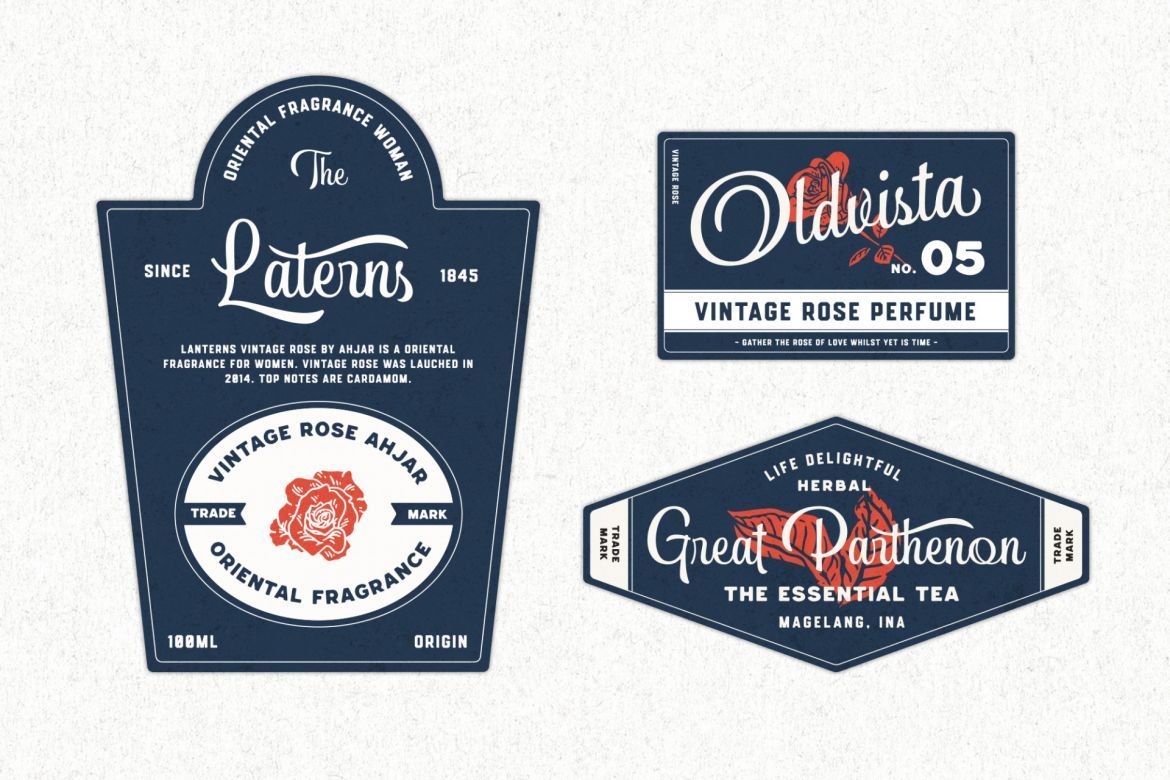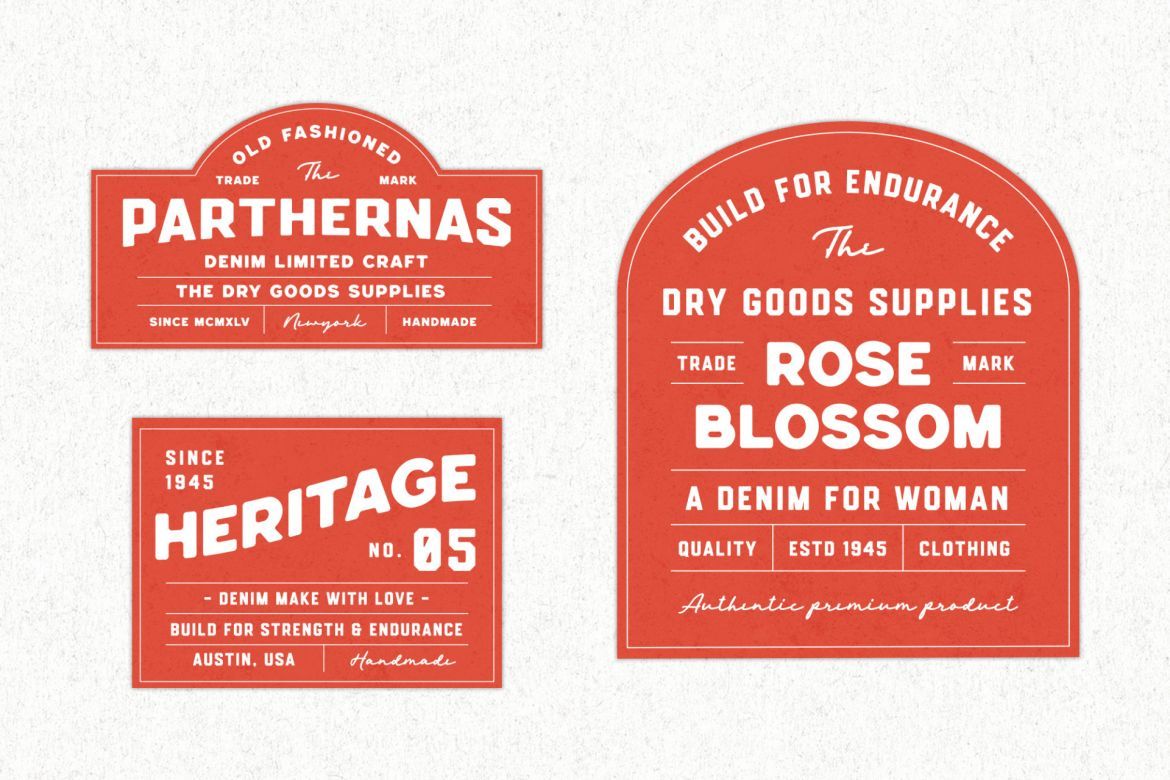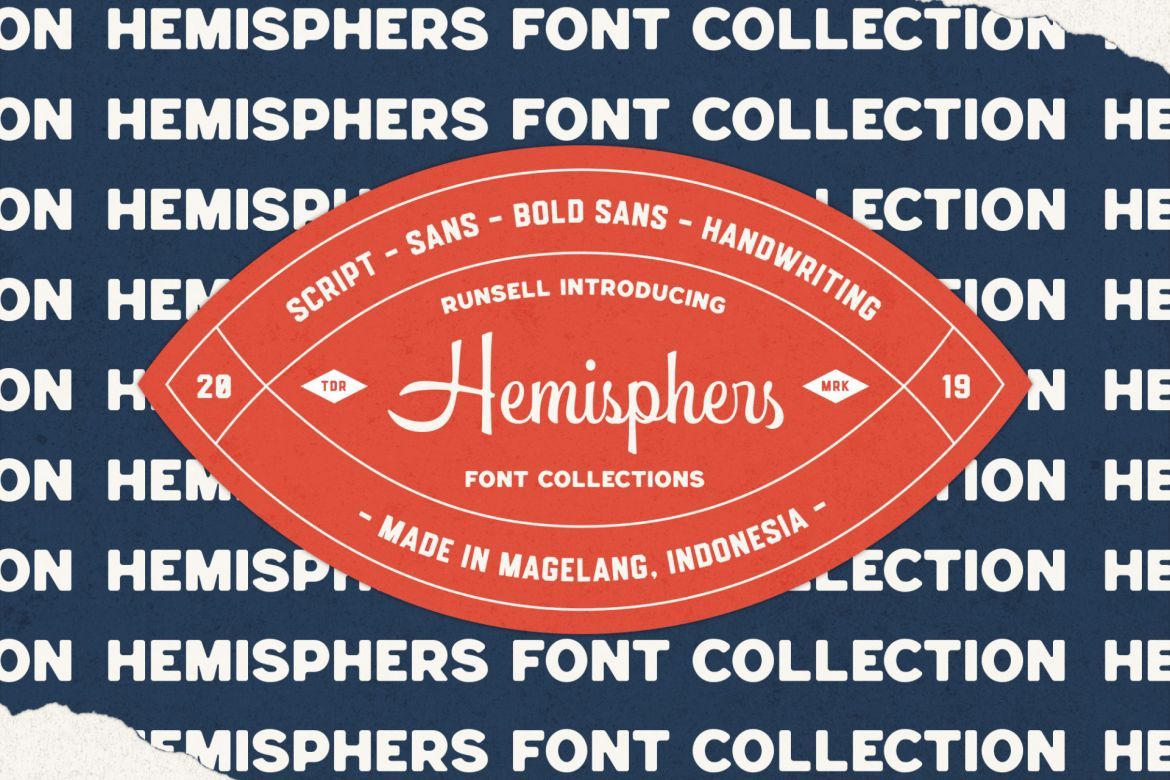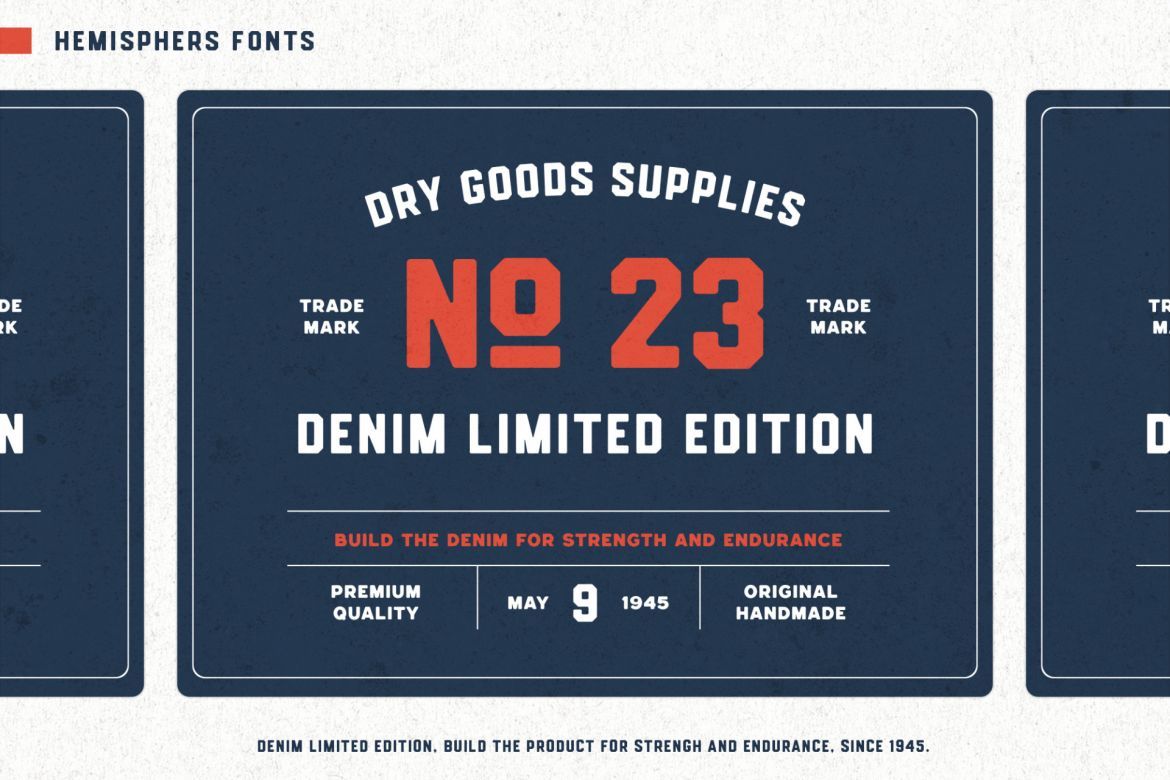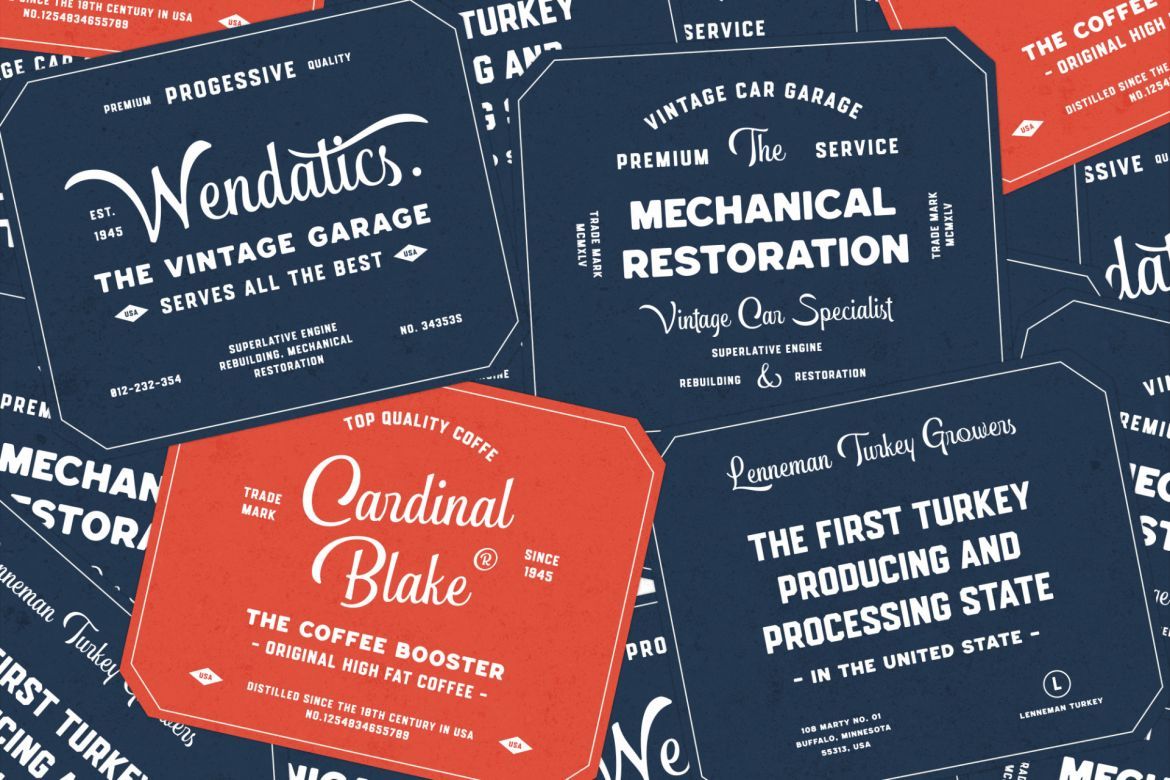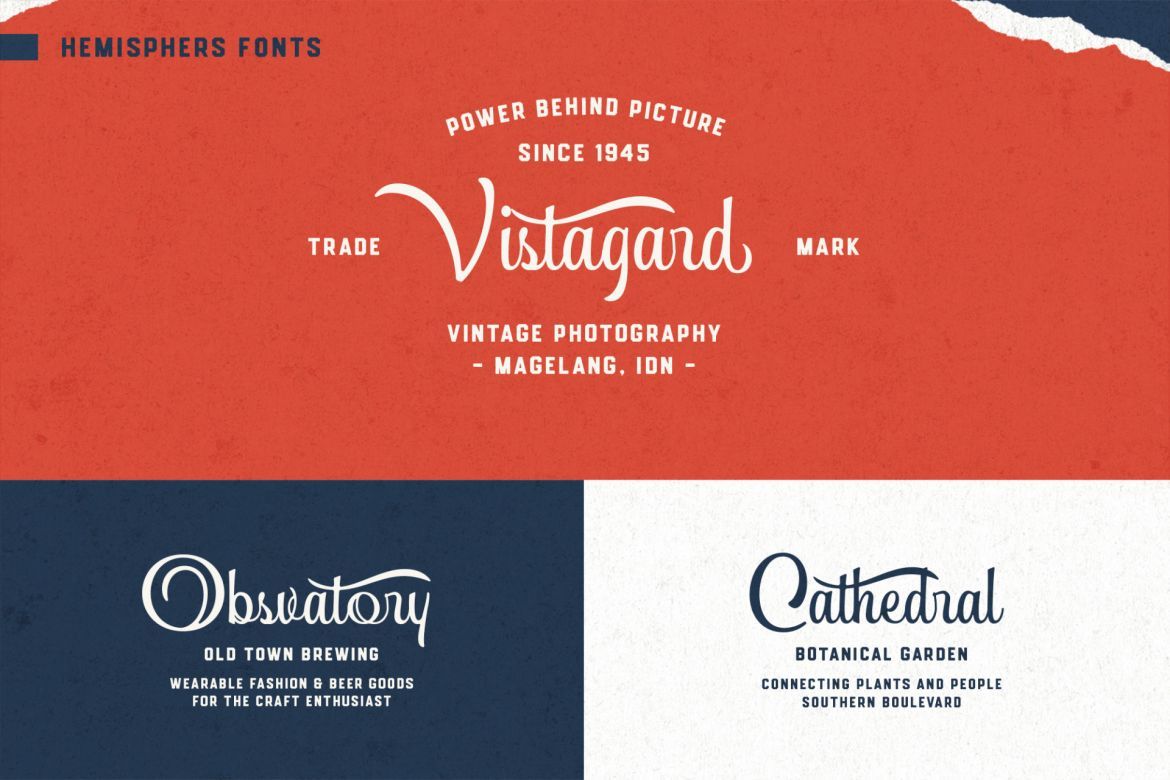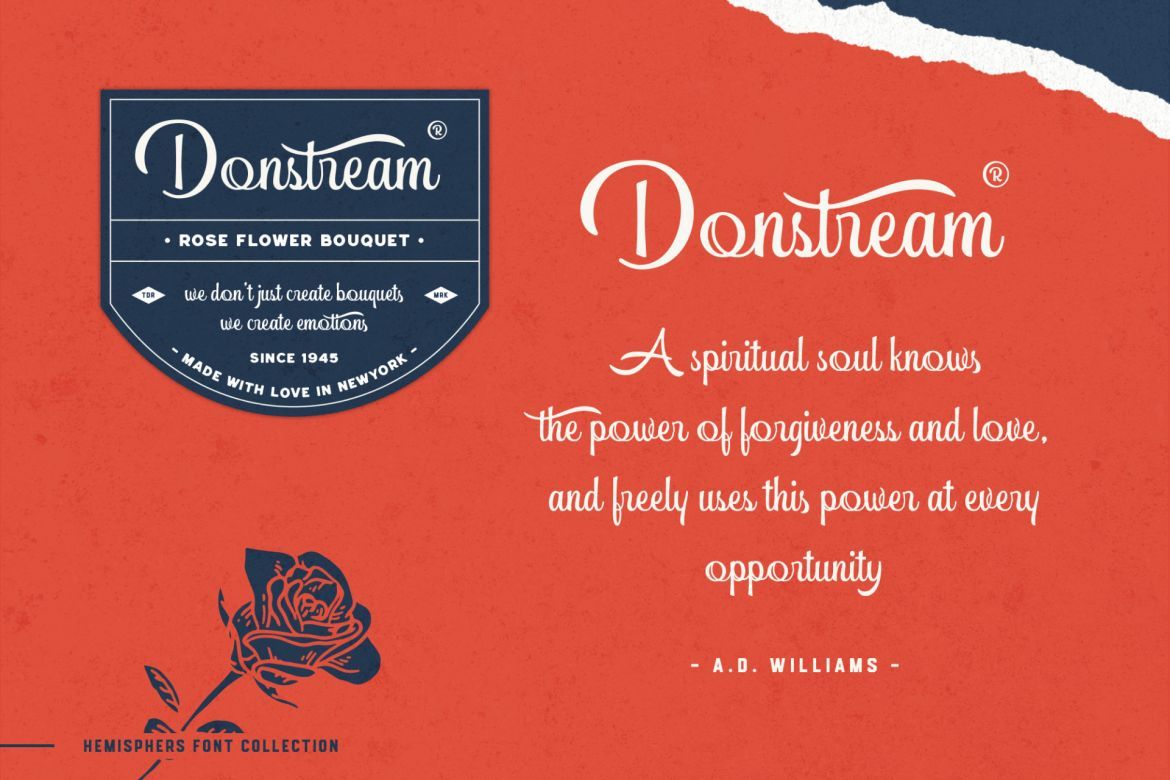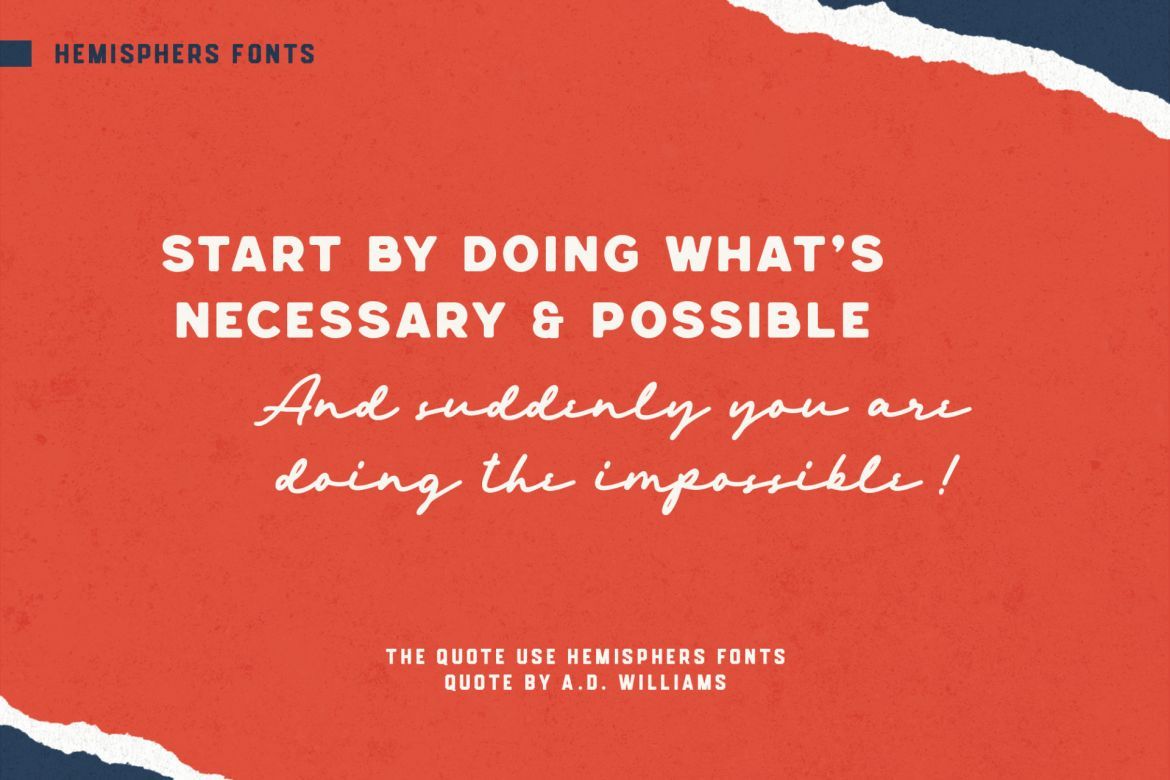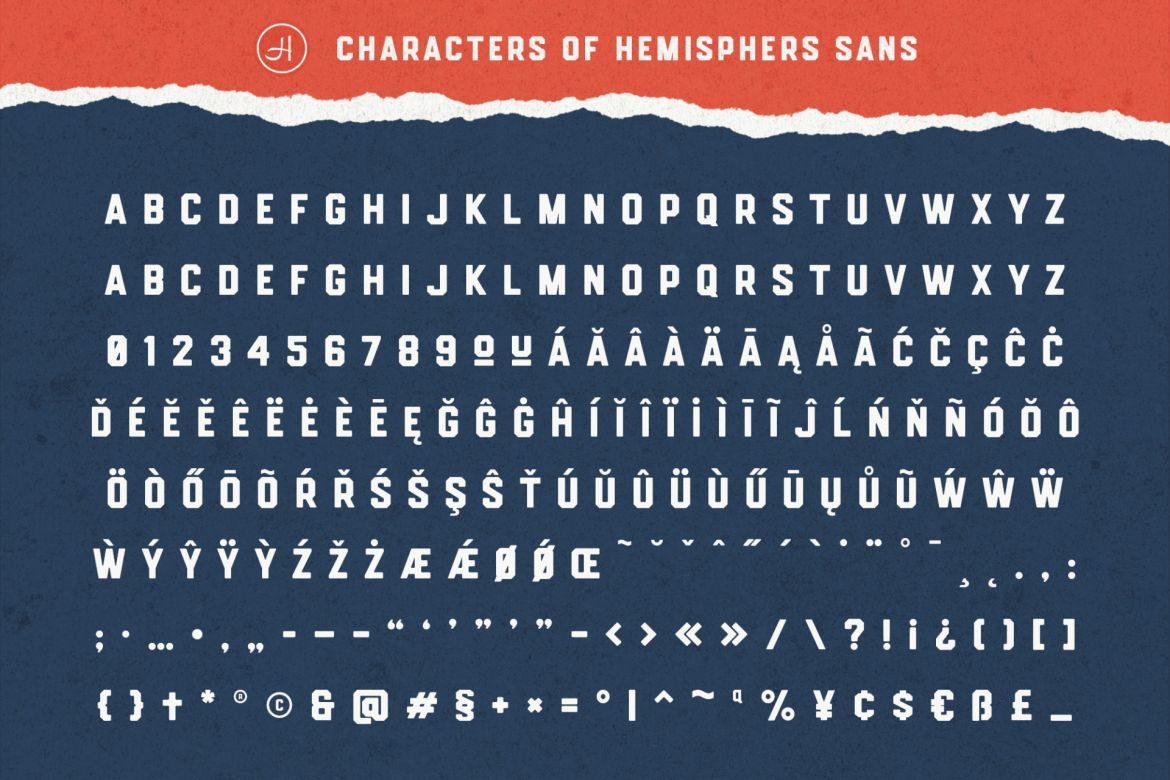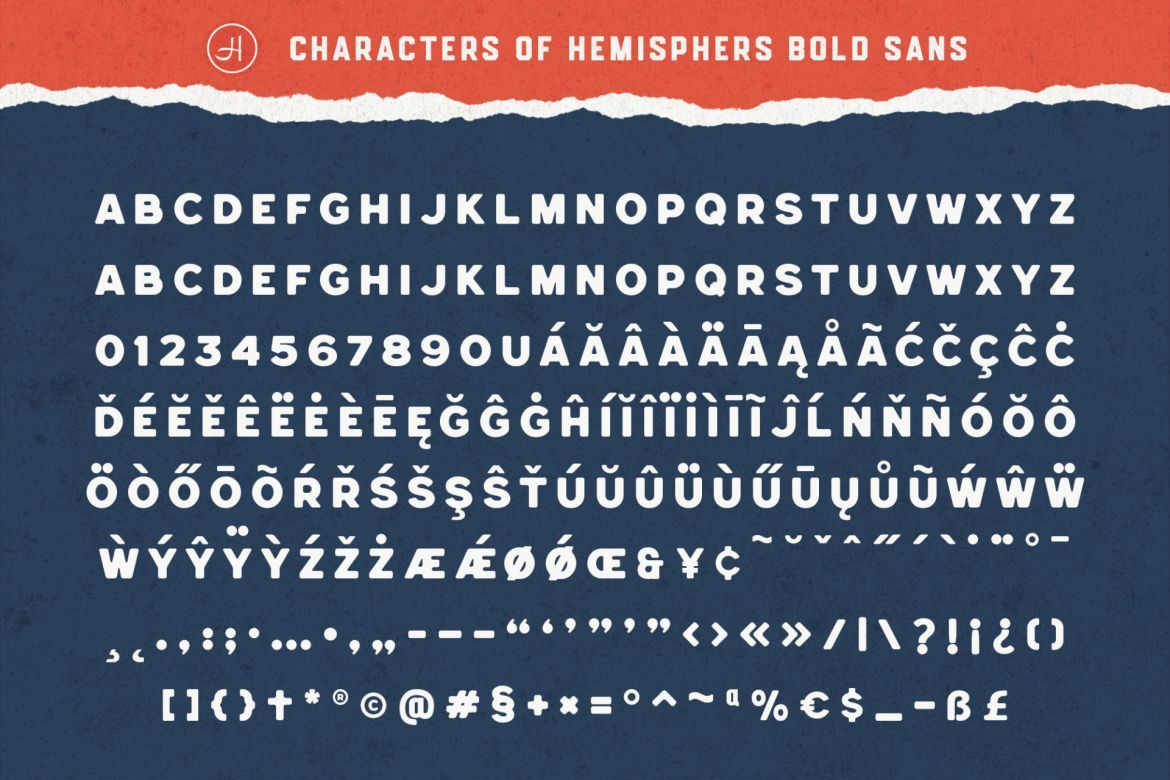
Hemisphers - Font Collection
The Hemisphers perfectly represents clean and classy design with script, sans, bold sans, and handwriting typeface. The project Inspired by unique labels, badge, and packaging. This collections consists rounded corner for organic printing look. This font matches applies in some designs such as the logotype, brand, packaging, branding, quotes, business cards and more custom design.
• carefully crafted
• consists rounded corner for organic printing look
• the features uppercase, lowercase, numeral, punctuation & symbol, ligatures, stylistic alternates, multilingual support, pua encoded.